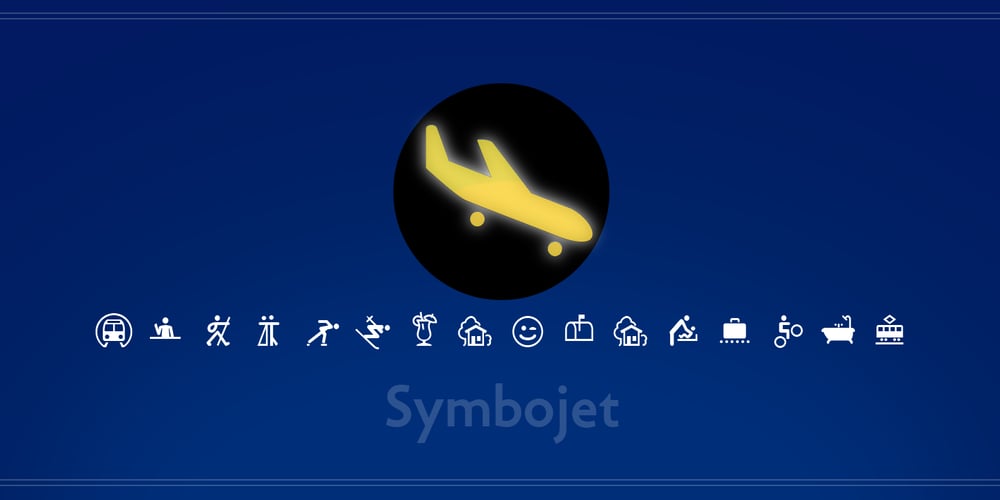
Symbojet Font Family was designed by Andreas Stötzner and published by SIAS. Symbojet contains 2 styles and family package options. Symbojet is the first professionally designed font equally covering alphabetic and pictographic characters on a large-scale scheme. It’s typographically based on Andreas Stötzner’s recent “Lapidaria” design and uses brandnew standard Unicode-6.0 codepoints for about 340 symbol characters. Use Symbojet for combined text/signage composing to design wayfinding, tourism and leisure, sports and transport matters, for media and communication, for birthday invitations or bistro menu cards … With Symbojet the combined usage of text and signage becomes as easy and elegant as it has never been before. Symbojet is available in a Regular and a Bold version. Both fonts contain about 340 alphabetic (full Latin and Greek) and 400 pictographic characters; in total they count about 1000 glyphs each. The pictographic content is the same in both fonts.